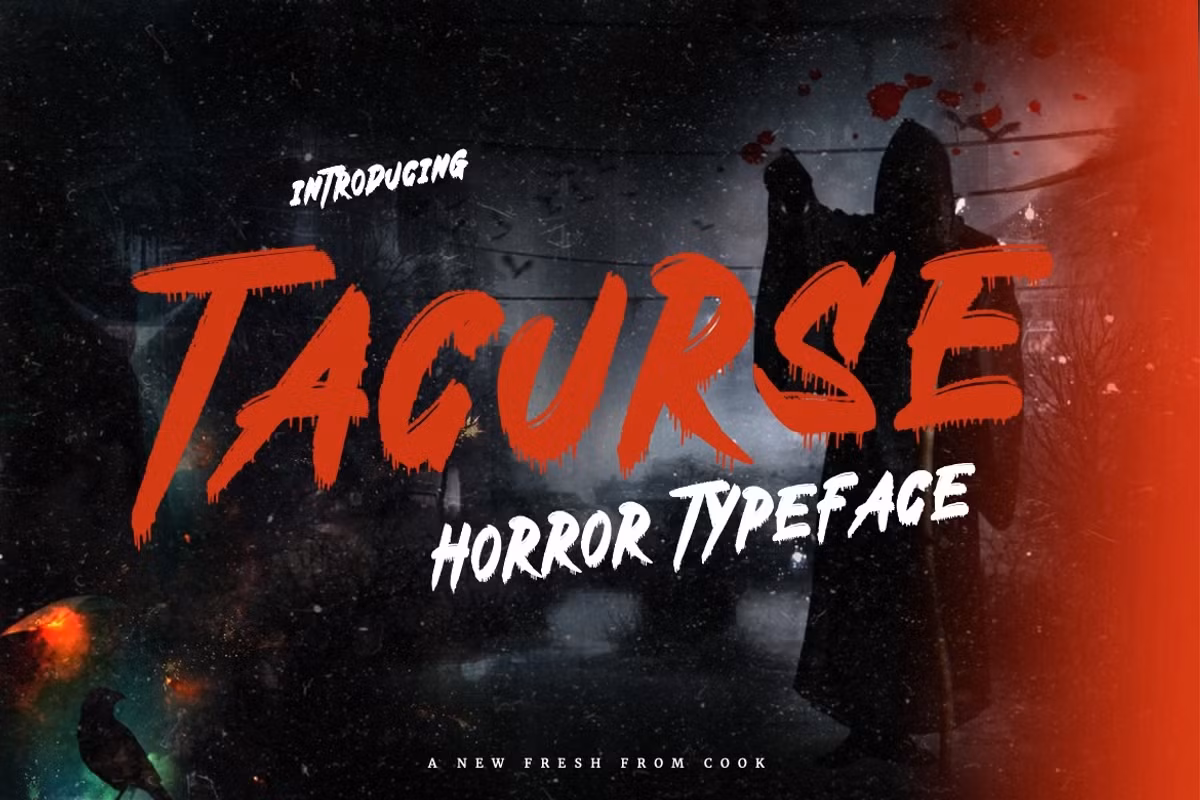
Tacurse - Horror Font Free Download
Tacurse - Horror Font Free Download is a chilling and intense typeface crafted for fear-inducing visuals and dark, dramatic designs. With jagged strokes, chaotic outlines, and a hand-drawn, blood-dripped aesthetic, Tacurse is ideal for horror movie posters, Halloween flyers, haunted house branding, creepy merchandise, and thriller book titles.
This font delivers an unmistakable sense of dread and suspense—perfect for designers who want their typography to evoke terror and tension. Whether you're creating eerie event promotions or building a sinister brand identity, Tacurse brings that disturbing, grungy edge to your layout.